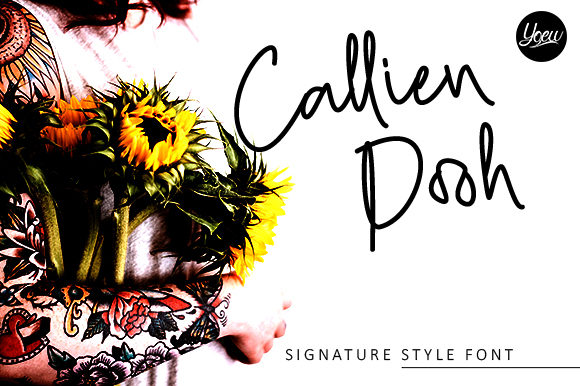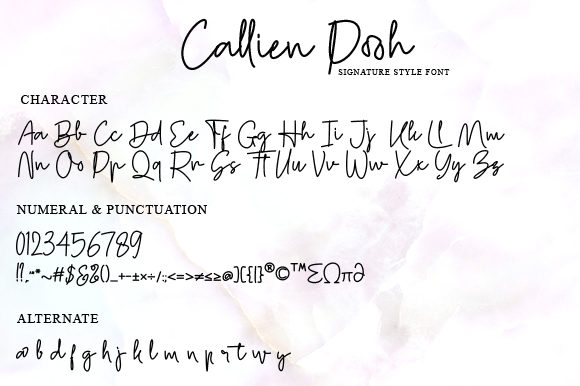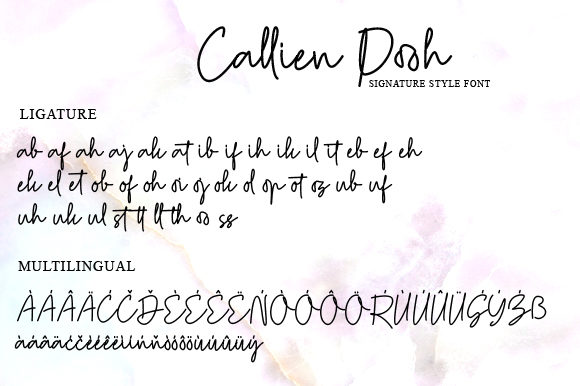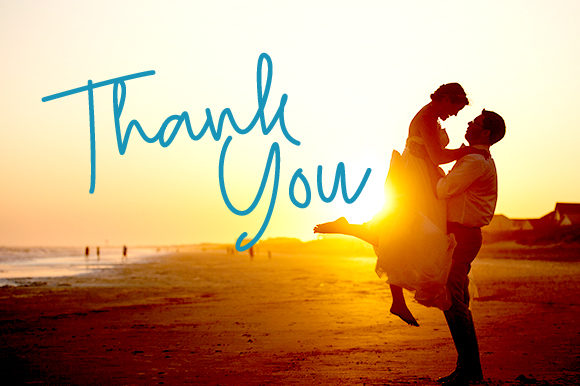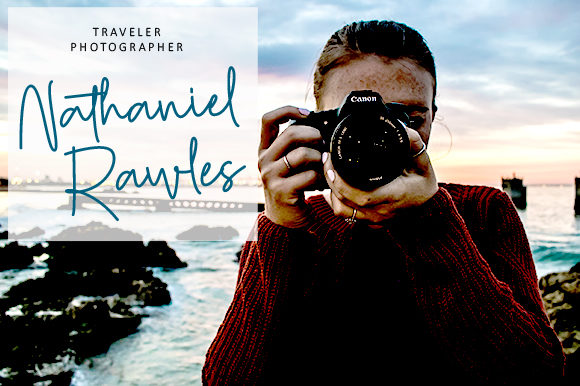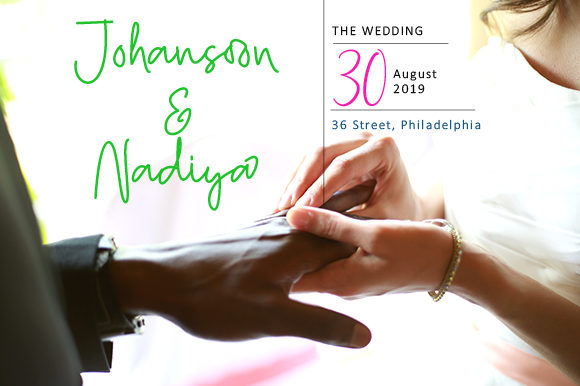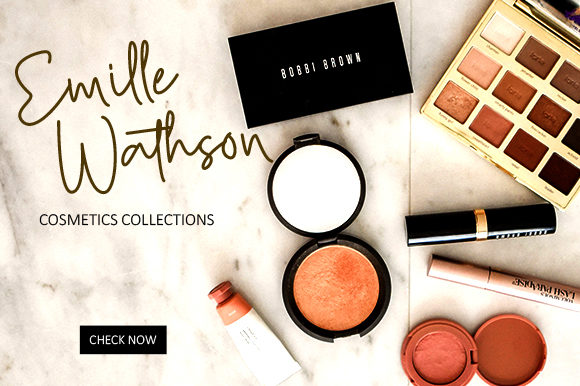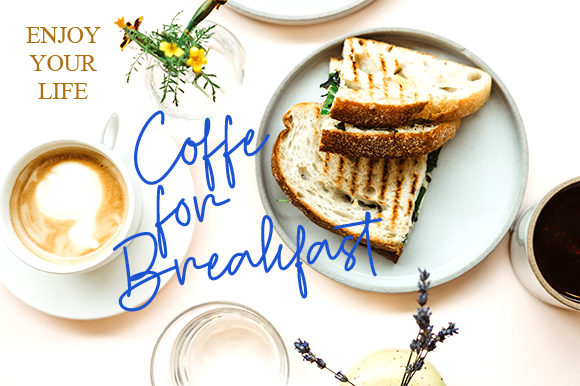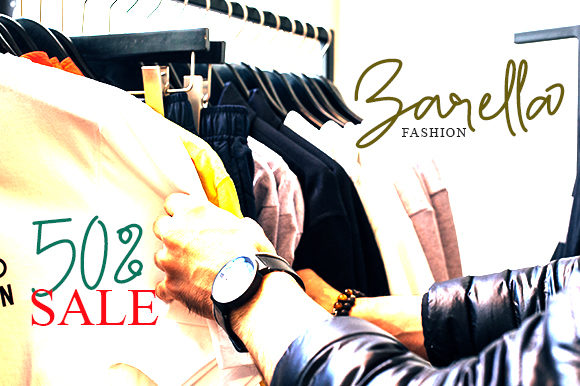
Callien Pooh Font
About Callien Pooh Font
Callien Pooh is a fun handwritten font. It features bouncy characters. It will elevate a wide range of design projects to the highest level, be it branding, headings, wedding designs, invitations, signatures, logos, labels, and much more!